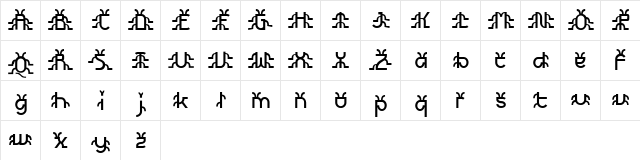
Futurex Bugz Regular
| Designer | Jeri Ingalls |
Design Context for Futurex Bugz Typeface
Futurex Bugz has a distinctly futuristic character, with geometric precision and clean angles that feel at home in technology, gaming, and sci-fi contexts.